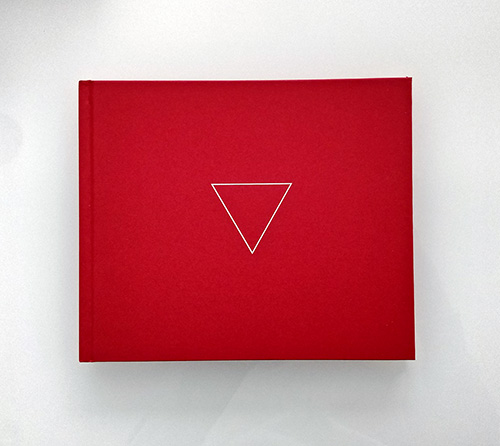
A new book by Steven Skaggs dropped through the letterbox, titled The Hidden Factor: Mark and Gesture in Visual Design (2023). It’s by no means logo-focused, but that’s good, because logos are, after all, pieced together using the same marks that make up all our visual surroundings, and it’s useful to step back once in a while and recognise that.
From the preface, “Artists usually think of their work as the making of an image; graphic designers think of design as communication through image and type. This book suggests that there is a third, hidden, factor at play in every visual work and image: the mark. When they are isolated by themselves, independent of pictures or words, we notice them, but when the three ingredients are combined, marks have a funny way of disappearing from our awareness.”
Steven kindly let me share the first of the book’s nine sections with you (excerpted below).
There is no visual entity without an edge.
We begin to see two edges, and when we do we begin to perceive one black line.
Those of us in the West see this line as “moving” from left to right. In Eastern cultures, people may see this line travelling from right to left. (But then they may have started reading this book from the other direction too!) If we see it moving from left to right, we see it diminishing, but if we see it moving from right to left, it seems to get thicker.
As the line gets thinner it eventually disappears. This place is called the “threshold of resolution.” The threshold is not a place that can be objectively pinpointed. In each viewing situation, the threshold will depend on a convergence of particular conditions, such as the precision of the reproduction process, viewing distance from the page, level of illumination, and a viewer’s eyesight.
Our ability to see a line is also affected by the kind of edge it has. If the smooth bottom edge is replaced with this jagged edge it becomes difficult to see it as a single black line. Now we start to see white objects sitting atop a black surface.
When the edges of the black form are in harmony, they reinforce directionality. Just as our ears hear two tones being “in tune,” our eye senses this harmonic relationship, and we are more likely to see the shape as a segment of a single line. We also sense a midline, or backbone, of the directional pathway.
(The graphic devices on these pages suffer discontinuities that are unavoidable in the making of a book. While our vision compensates for the slight bend of the paper, the breaking of continuity at the spine, where the book’s pages are bound together, is more disrupting.)
Meanwhile, although we’ve added just one more edge, this page looks much more complex than the preceding page. And it remains ambiguous as we struggle to settle on a single holistic object. Is this a white page with a black diagonal wedge above a curved black shape below? Or is it a white shape on a black background with a little bit of a white area “left over” at the top left?
Cropping and scaling can introduce another kind of ambiguity. Cut out a tiny portion of a gently curved shape, and the cropped edge suddenly loses its sense of curving and appears to be straight. The cropping drastically changes a visual form’s character, but as long as we retain an edge, visual form itself never goes away.
So different from language, where even slight cropping (editing) may drastically change the character of what is said, while a severe level of contraction not only changes the content but eventually eradicates verbal communication itself.
When edges conform and a line has harmony, with negative space clearly apportioned, the resulting figure appears somehow natural and whole. Why should it be so? It has been more than a century since such habits of perception were identified by psychologists Max Wertheimer, Kurt Koffka, and Wolfgang Köhler, and this is still one of the mysteries of consciousness. Certain visual tendencies that lead to wholeness and harmony are known as gestalt principles of perception.
This is certainly seen as a rectangular shape. This is just as surely seen as a short line. But do we see a black rectangle containing a white line? Black rectangle with a gap and then a black line? Two black rectangular shapes?
Dynamism also plays a part, and whether something exits a frame such as a page of a book, or contains something else (like this text) within.
Ultimately, there is no clear distinction between line and shape — the terms simply serve as rough descriptions of the appearance of visual objects. Calling something shape or line is merely a way of pointing to features of its form. Formalism is at the heart of the traditional “principles of art.”
“Skaggs explains the quotidian process of creating letters and images in the most enticing and inspiring ways. It is a must read primer for neophyte and veteran mark makers.”
— Steven Heller
“Steven Skaggs unearths the tactile joy buried in the formalizations of design. Bodies in motion make tangible marks on materials. Typefaces, logos, images, and patterns freeze gestures into crisp, coherent signifiers. Use this book to experience the haptic origins of communication.”
— Ellen Lupton
Quick mention for the minimal cover design that’s hidden behind the dust jacket (below).